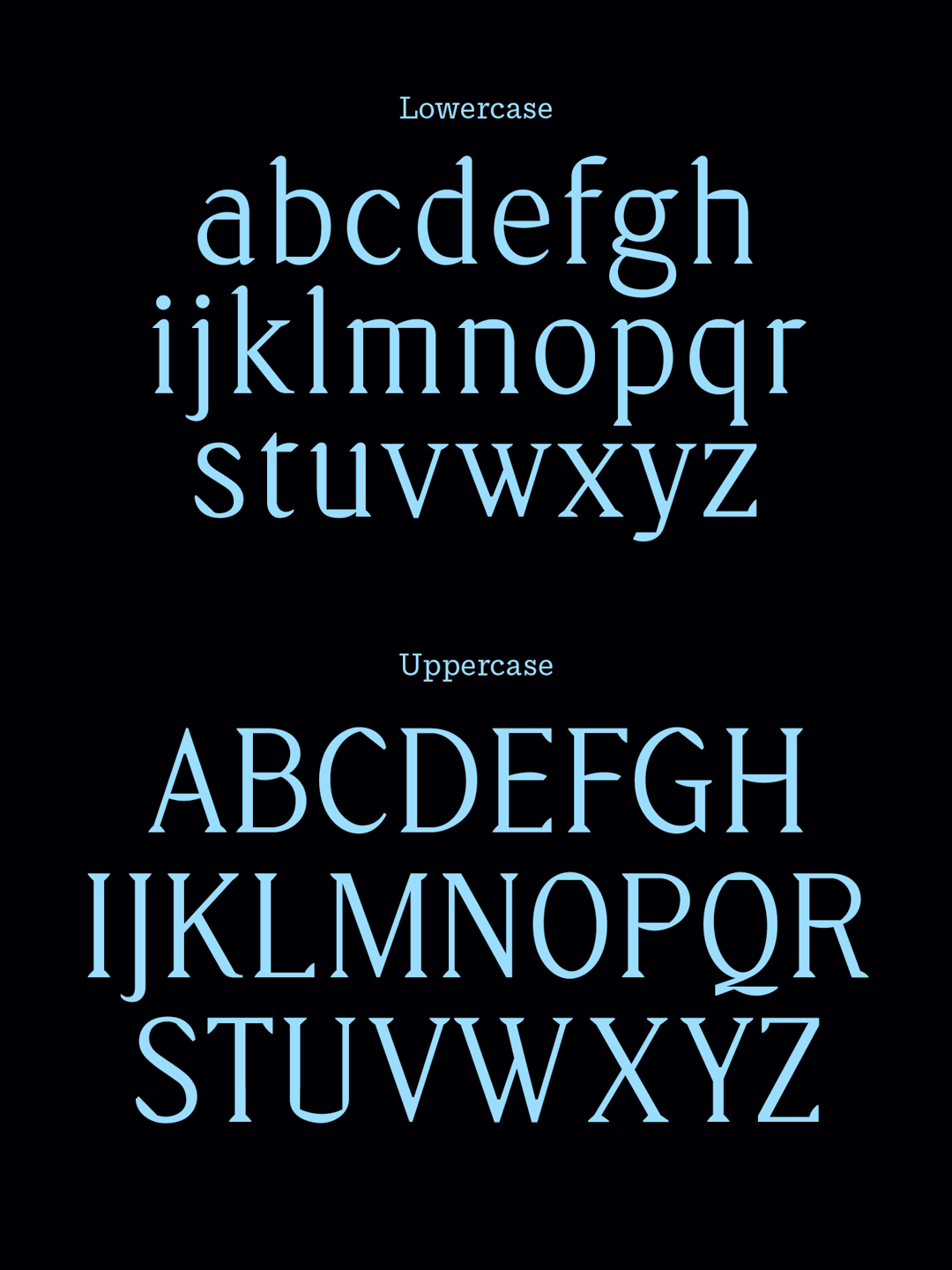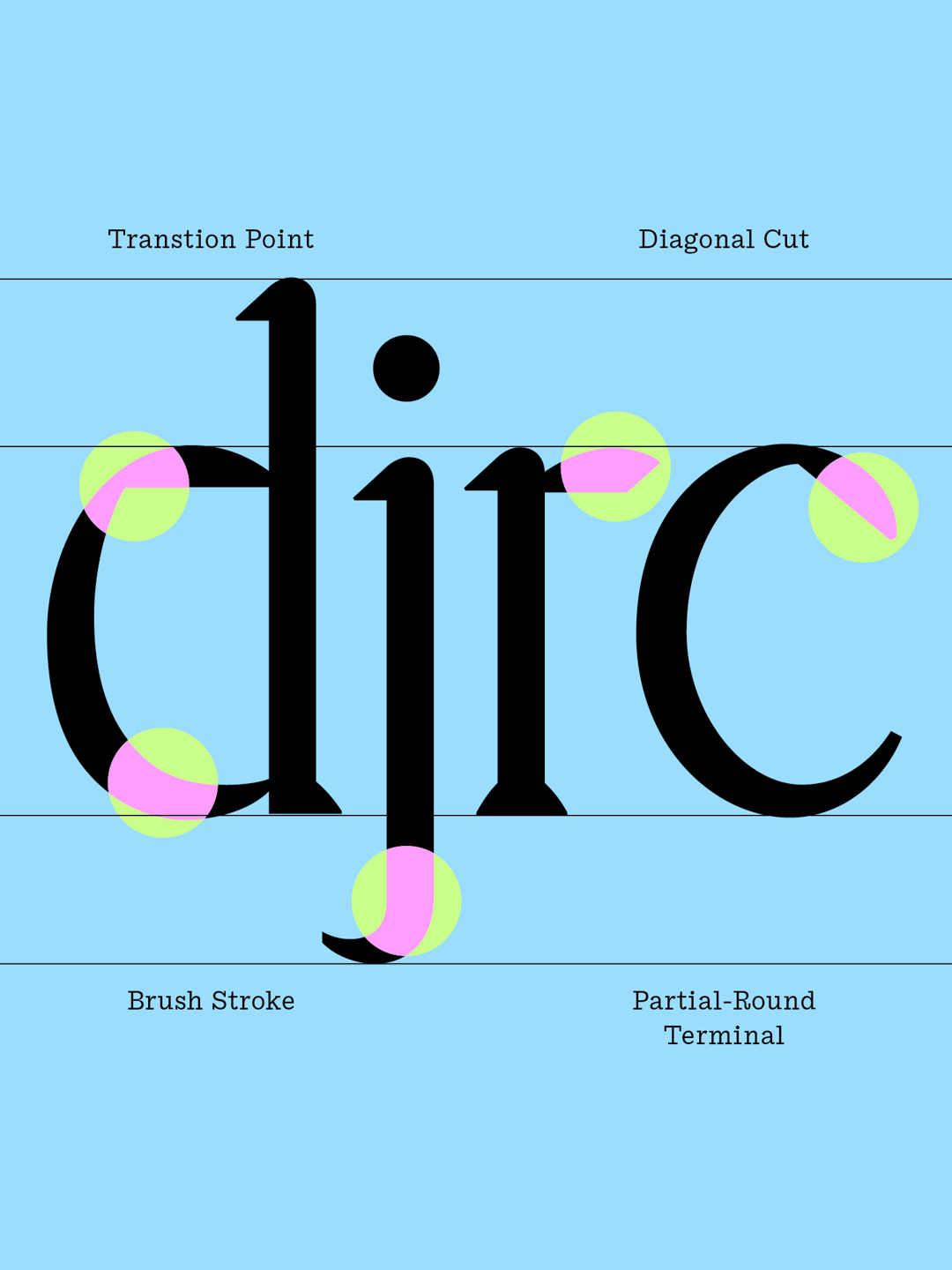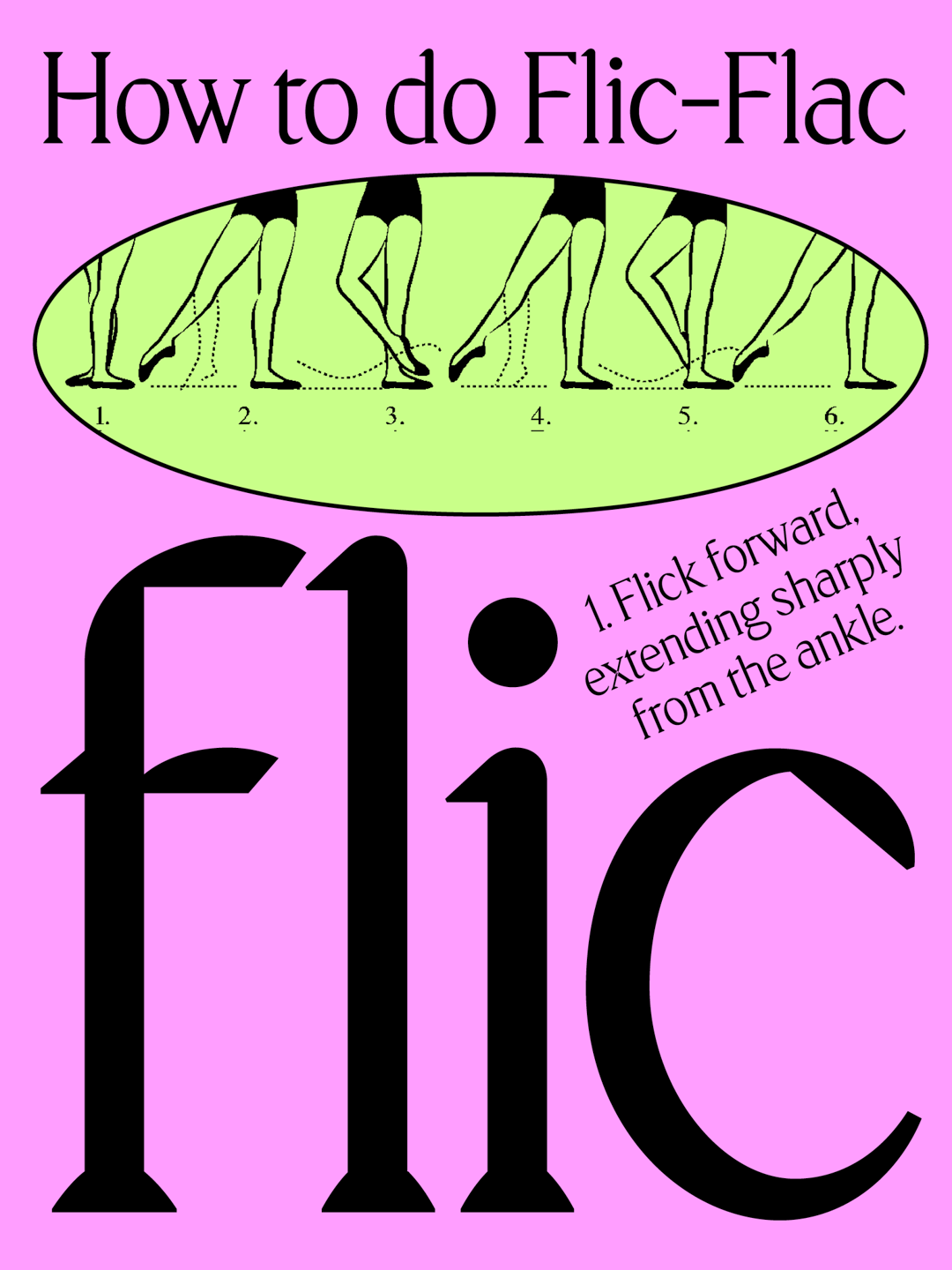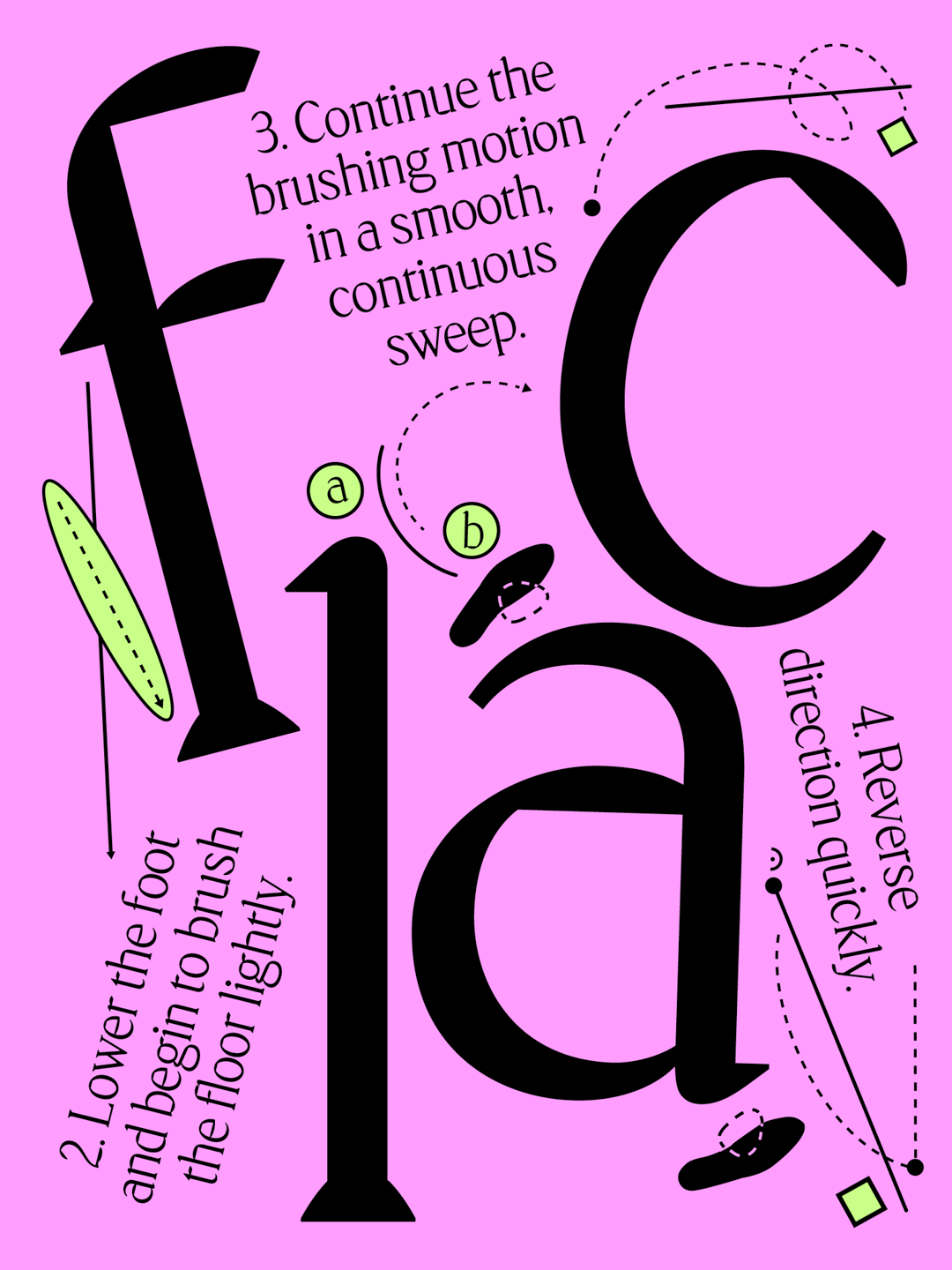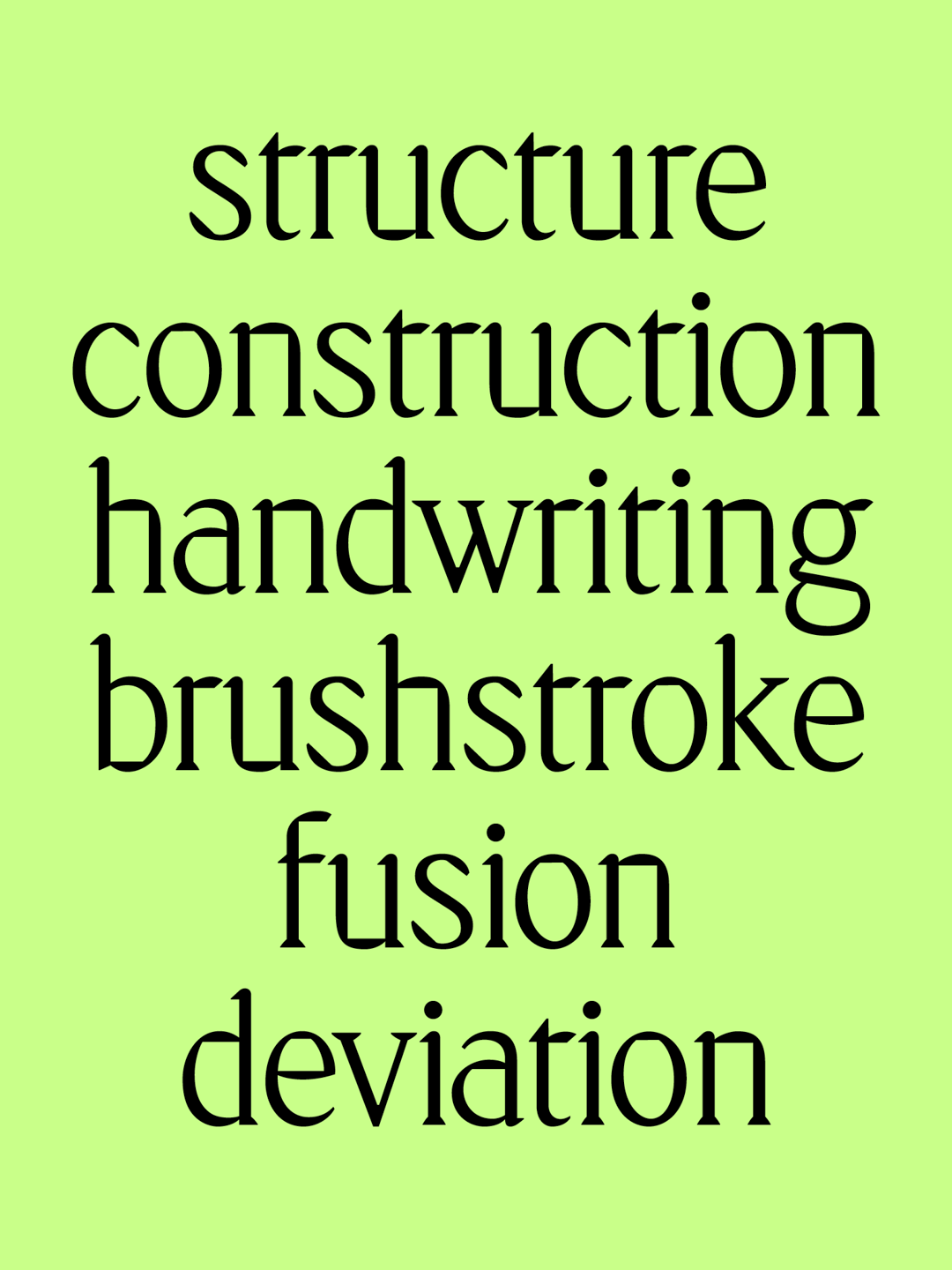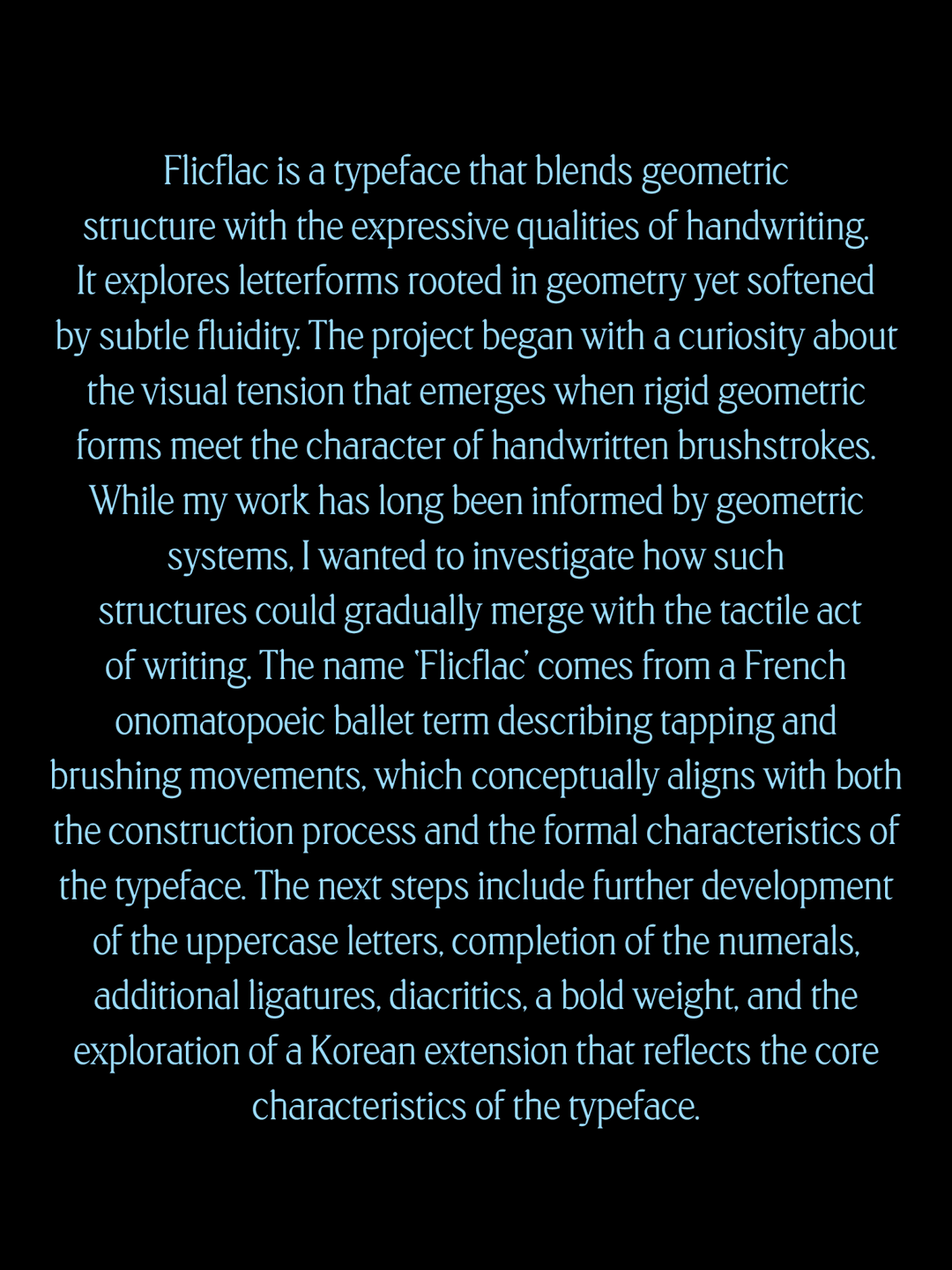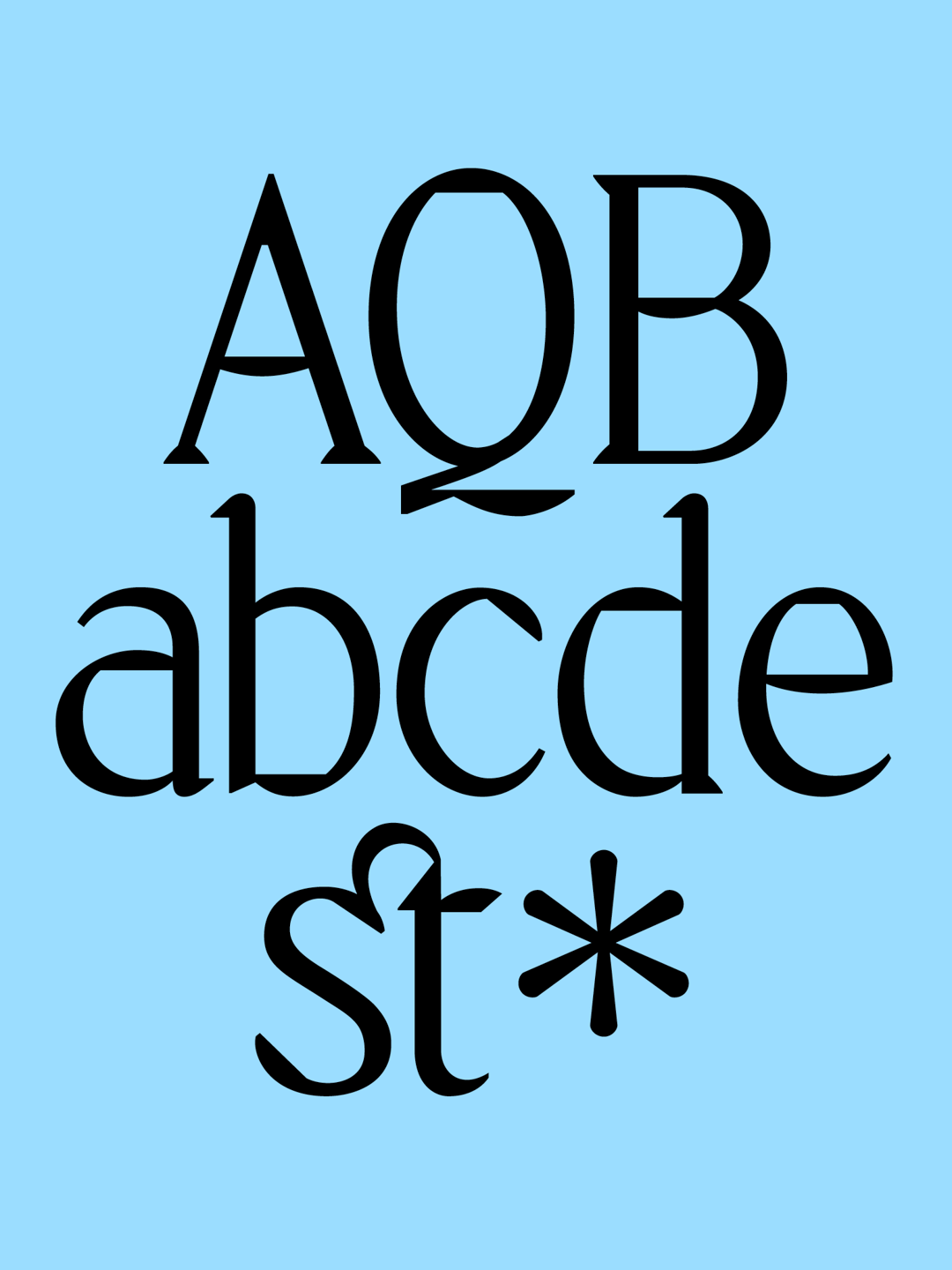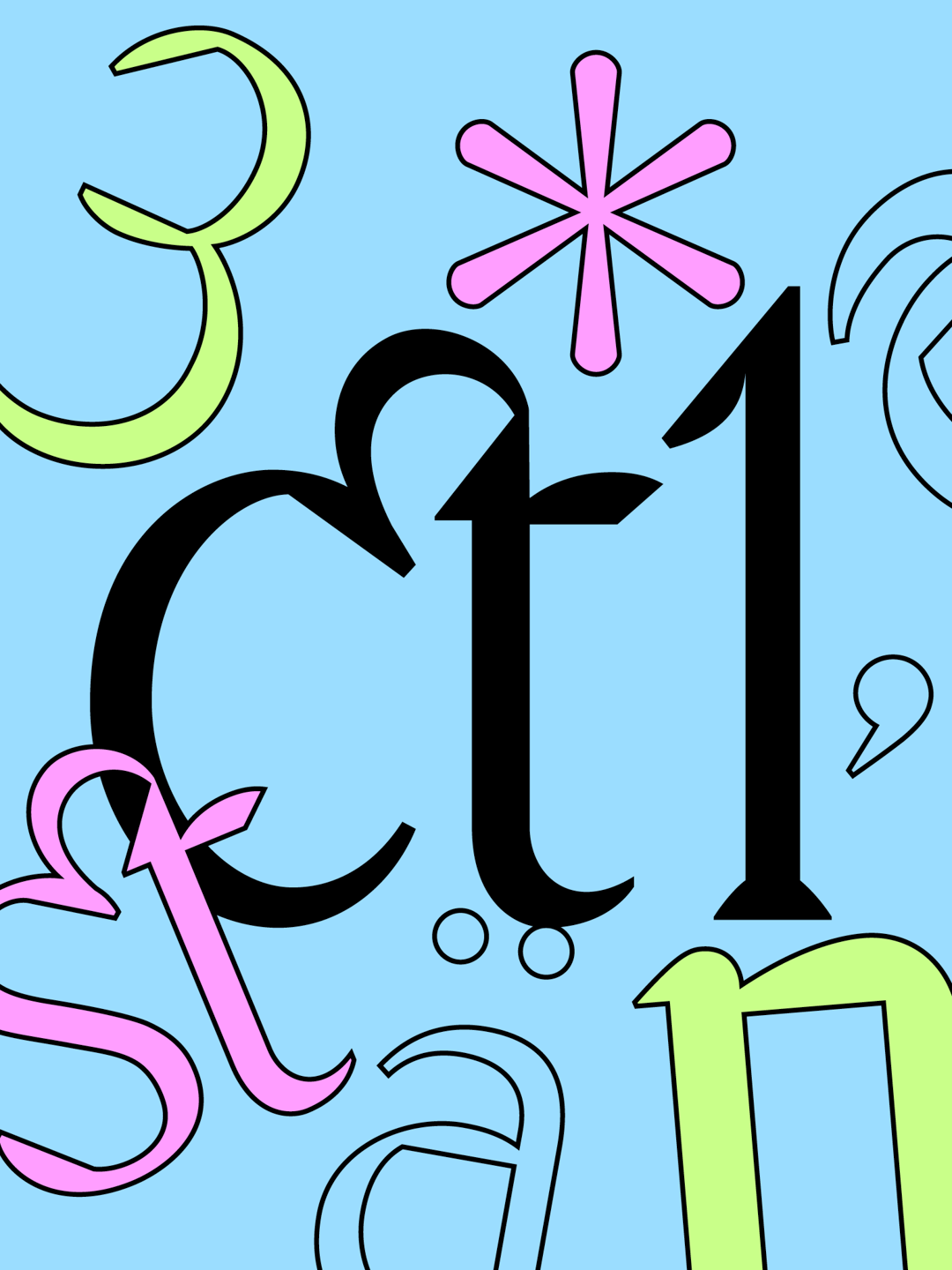
Flicflac is a typeface that blends geometry with the expressive qualities of handwriting. The project began with a curiosity about the visual tension that emerges when rigid forms encounter the character of handwritten brushstrokes.
The letterforms started as sketches on grid paper, establishing an underlying structure. An actual pen was then used to further explore the forms, allowing brush-like textures to emerge, particularly in the central parts of the strokes.
Flicflac is named after a French onomatopoeic term describing a movement of tapping and brushing. The name reflects the typeface’s formal qualities, where moments of precise contact intersect with the soft texture.